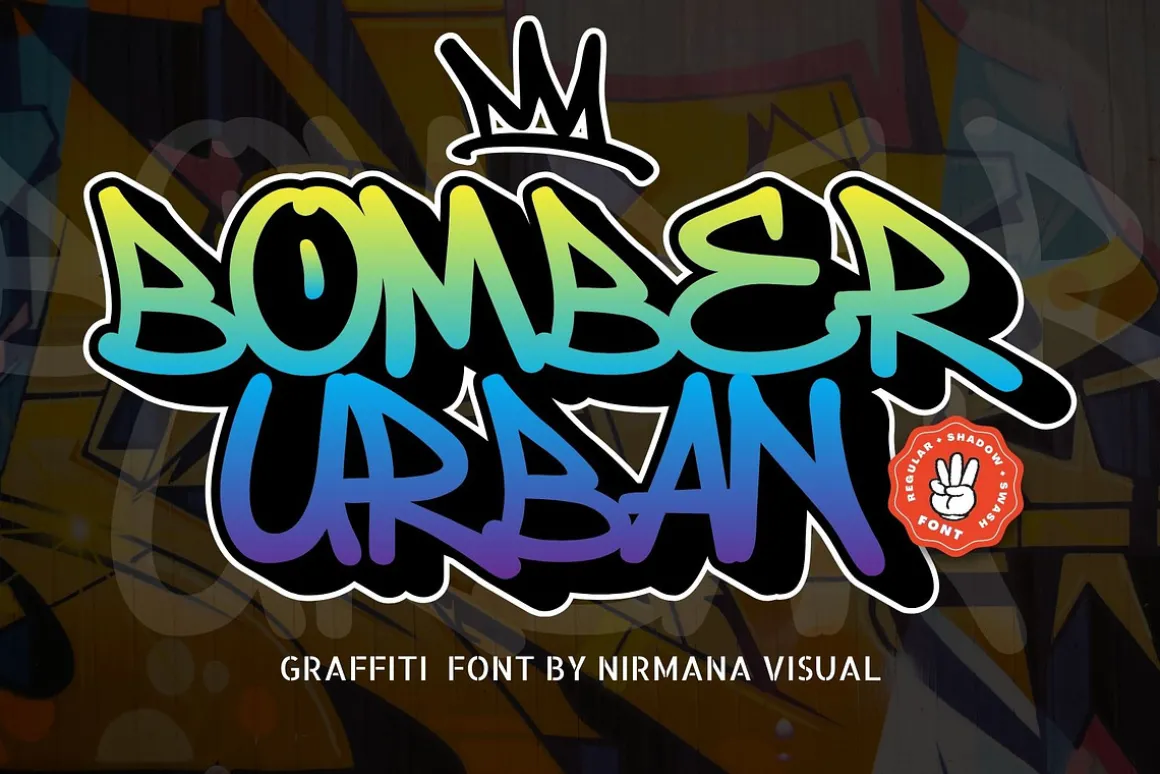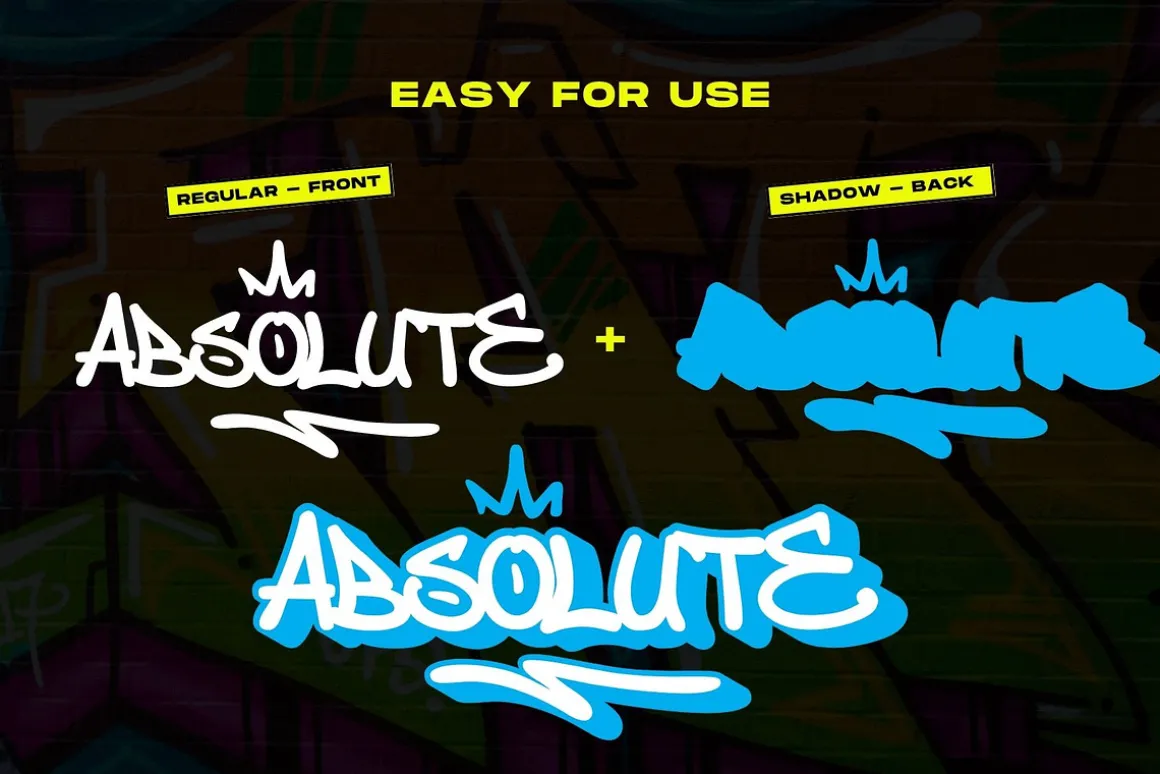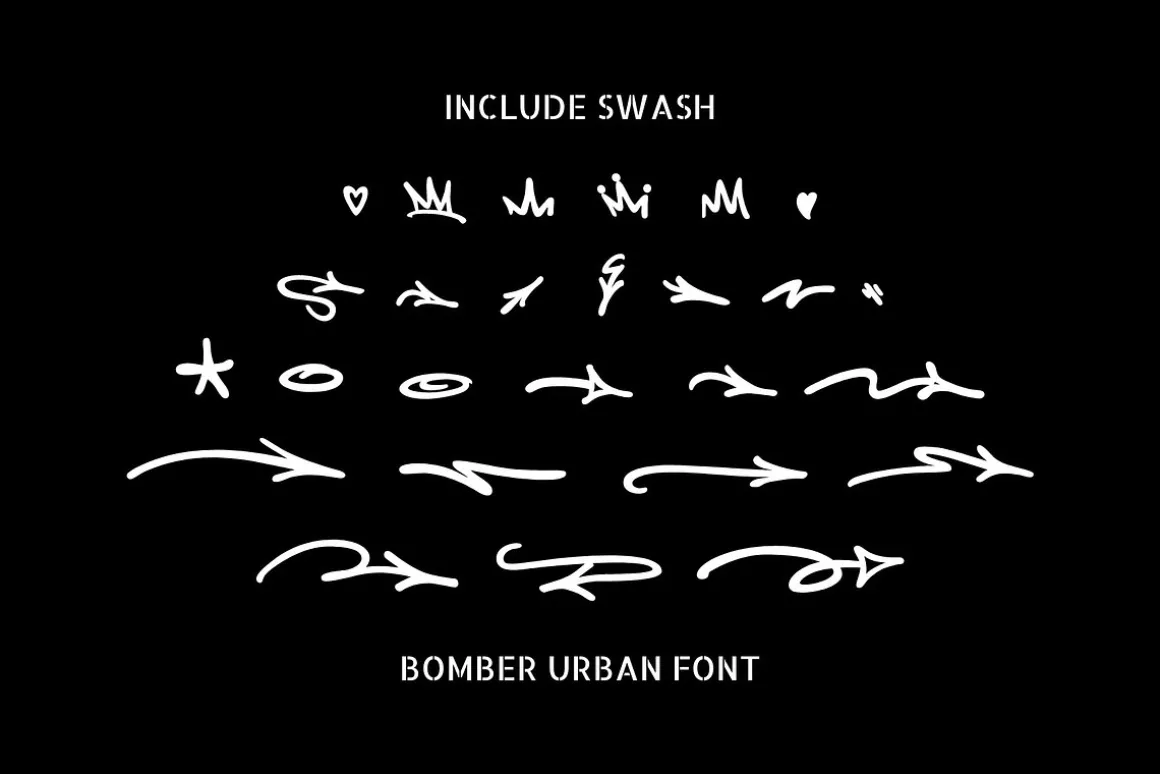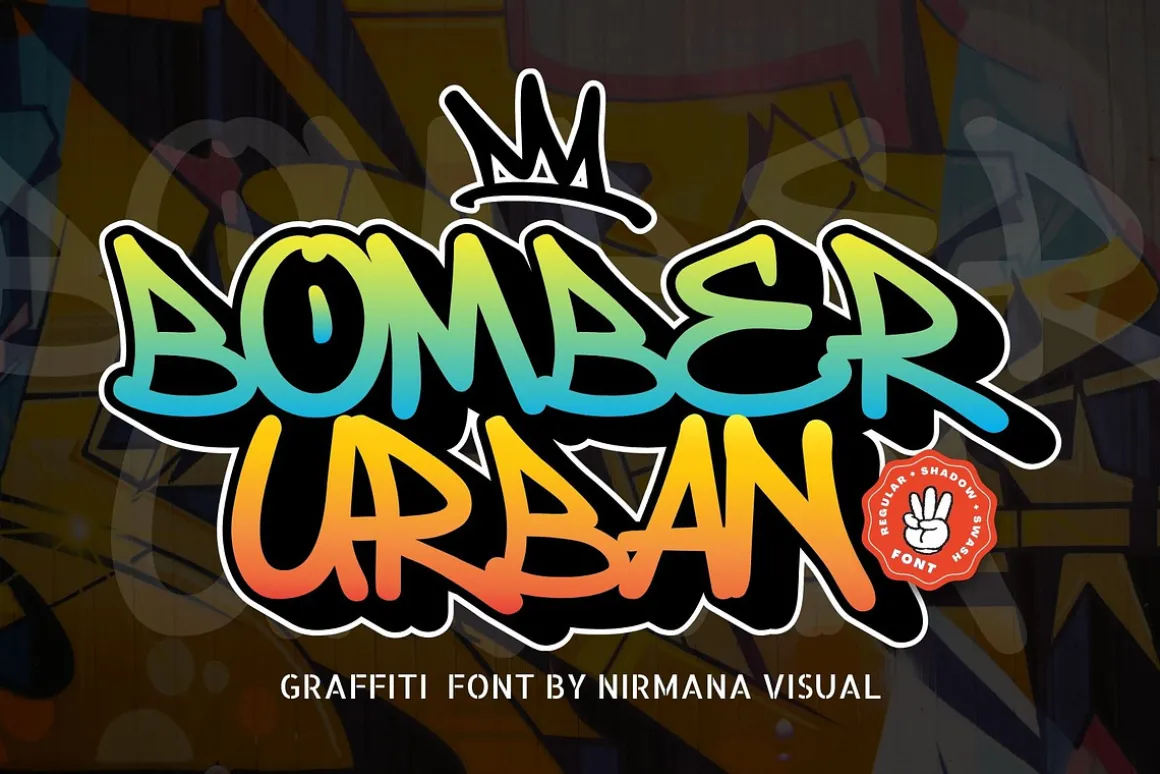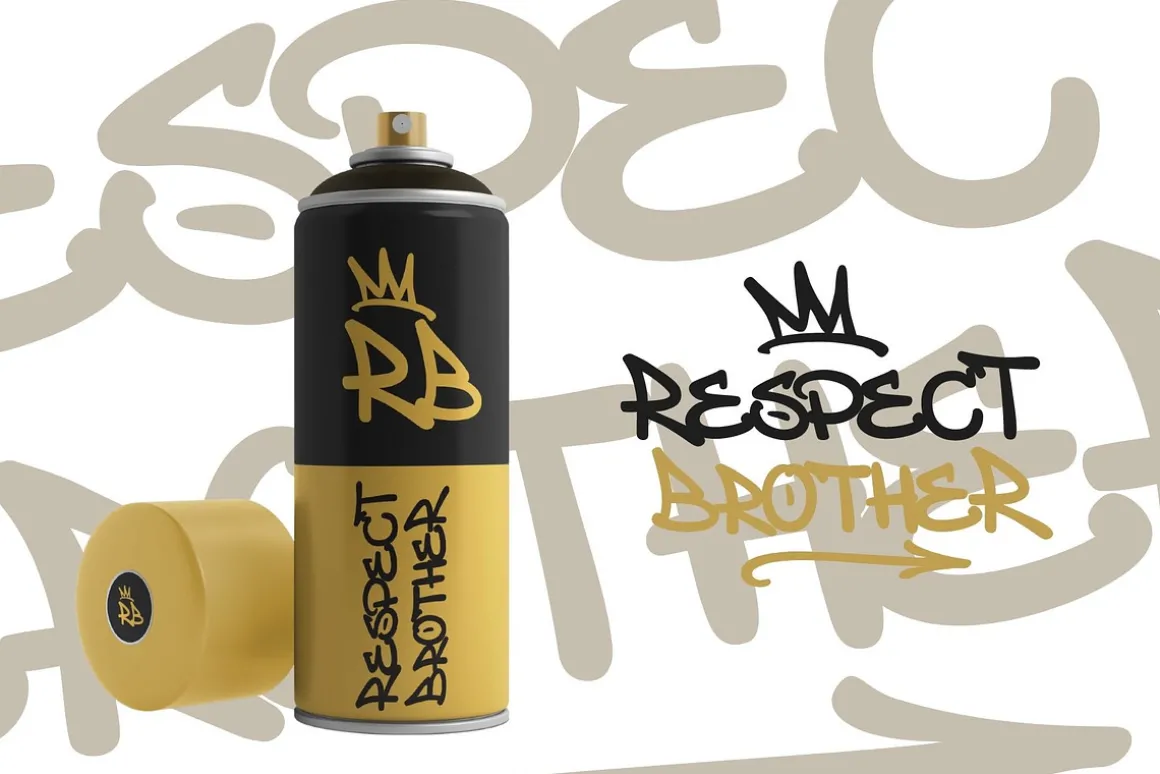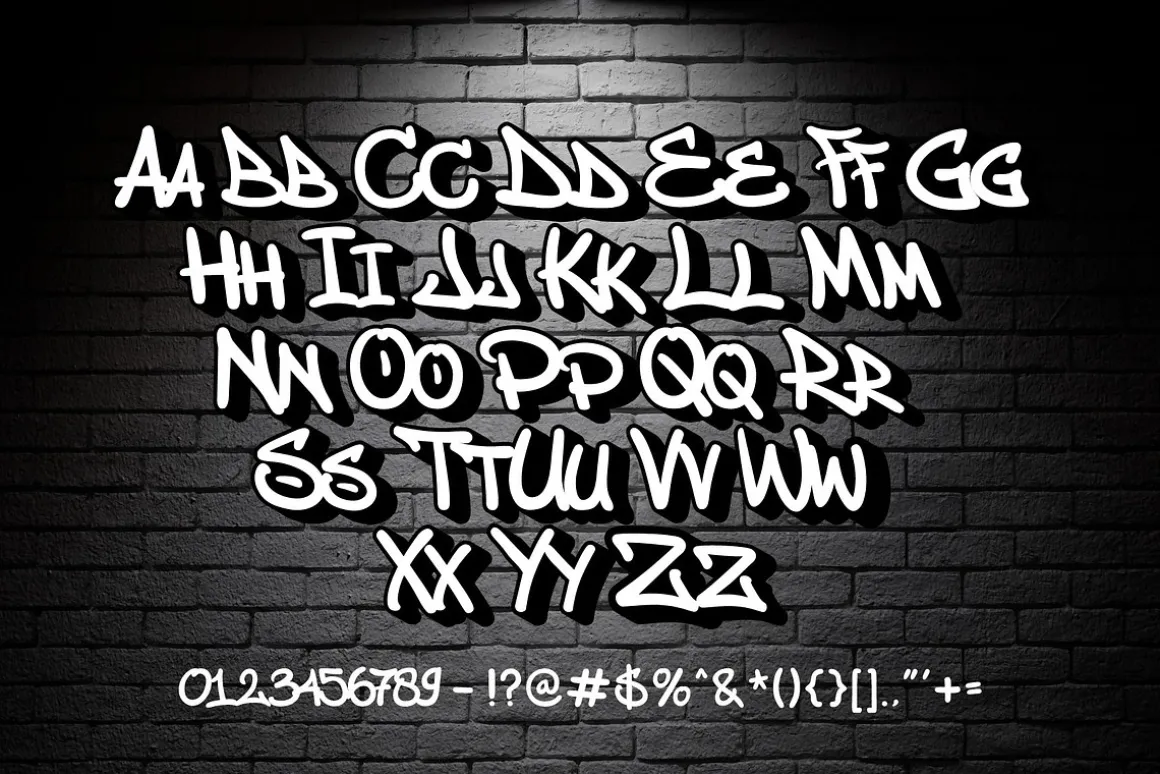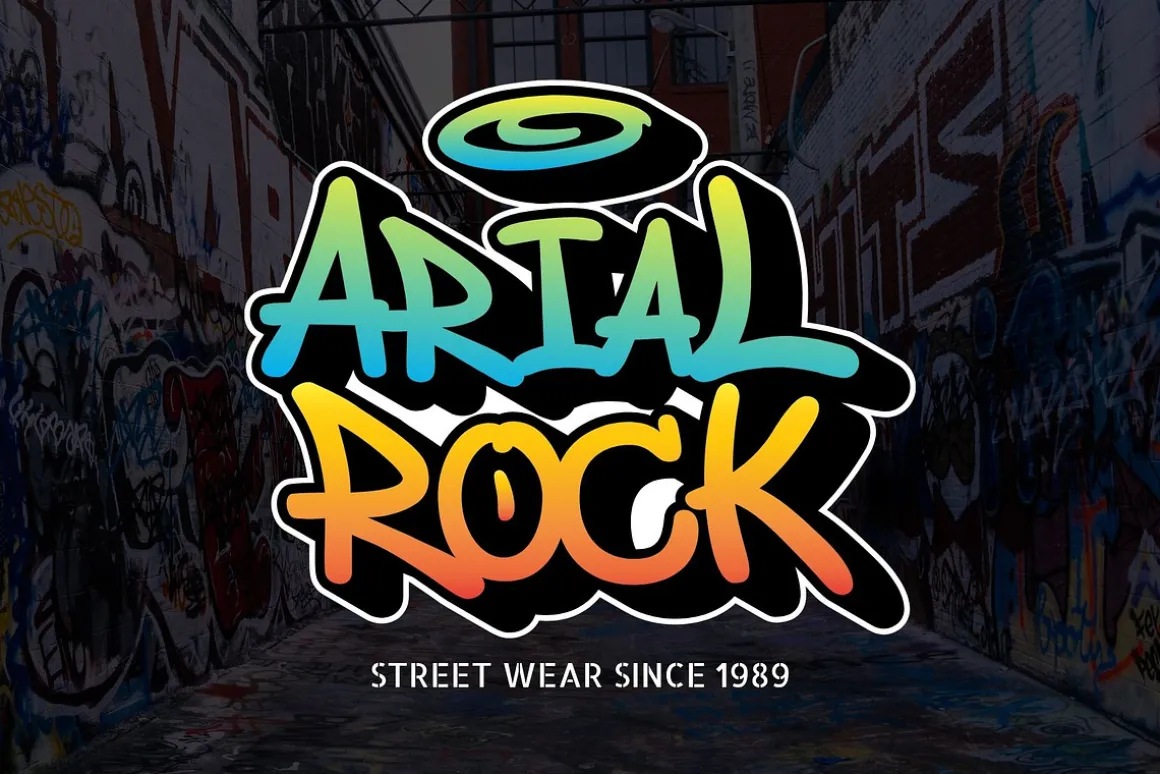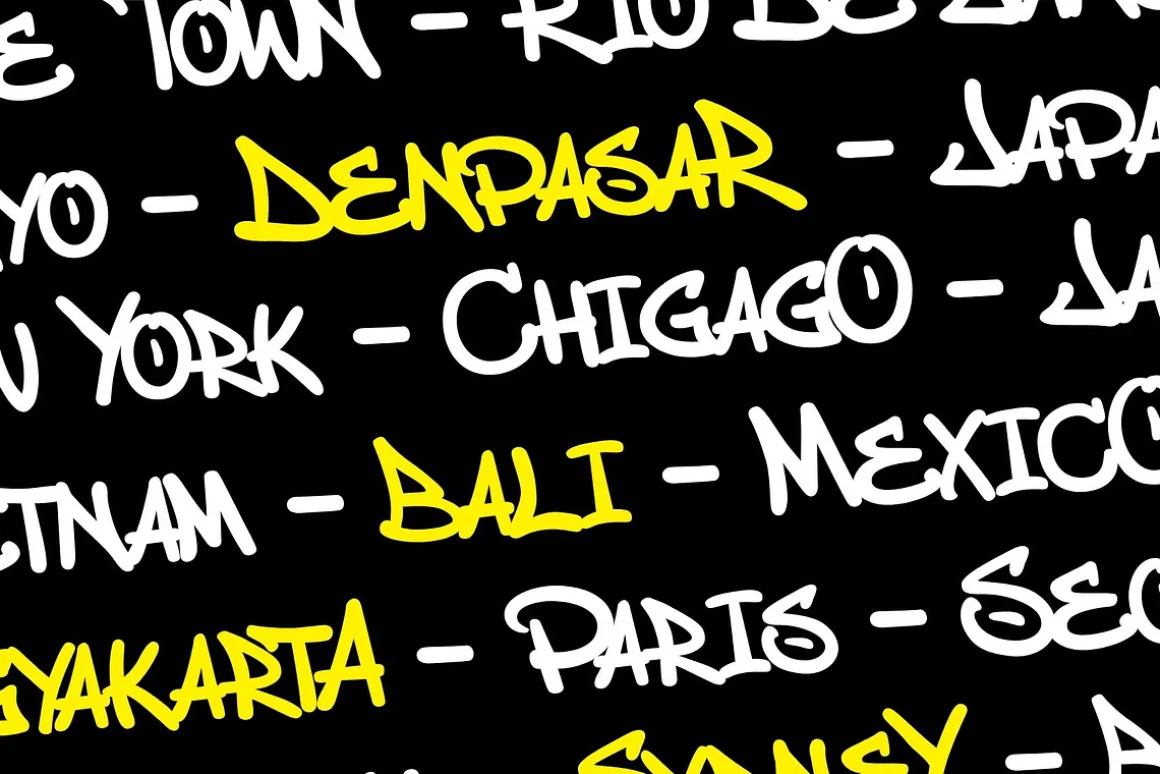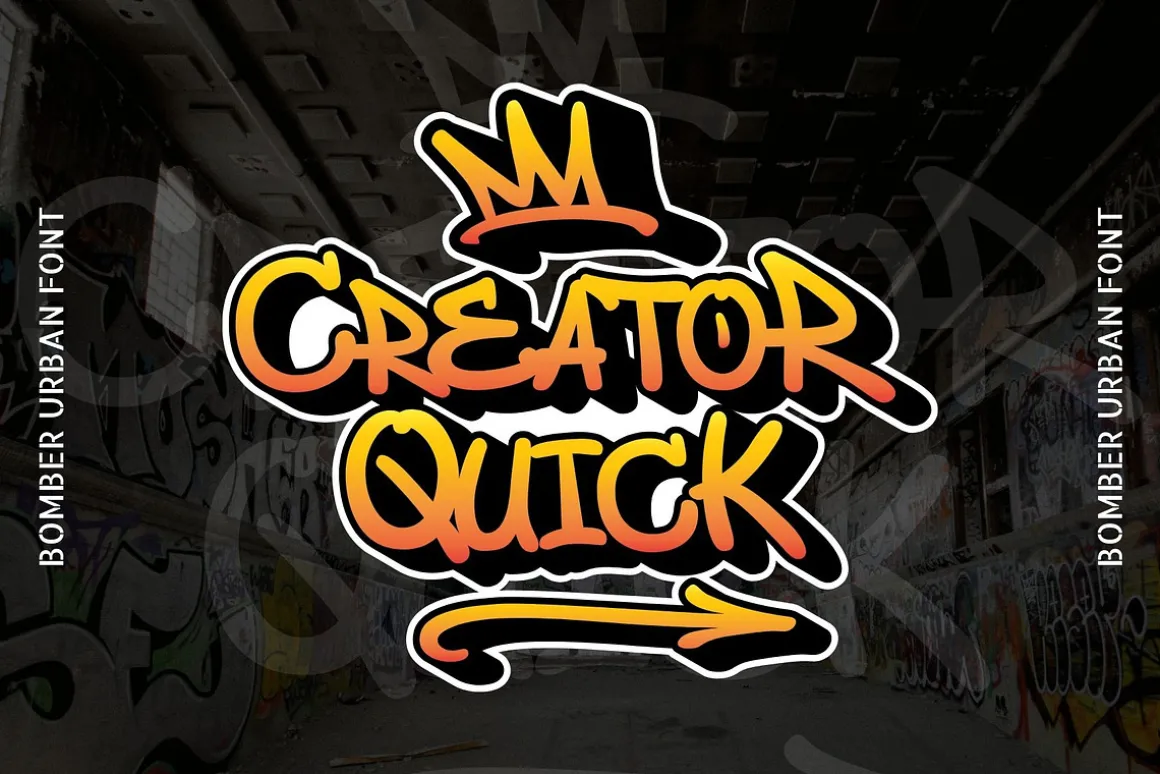
Bomber Urban is a fun, urban-style display font. This font is suitable for designs like logos, advertising, apparel, jerseys, sportswear, skateboard designs, and more. Take your concepts to the next level with this stunning font!